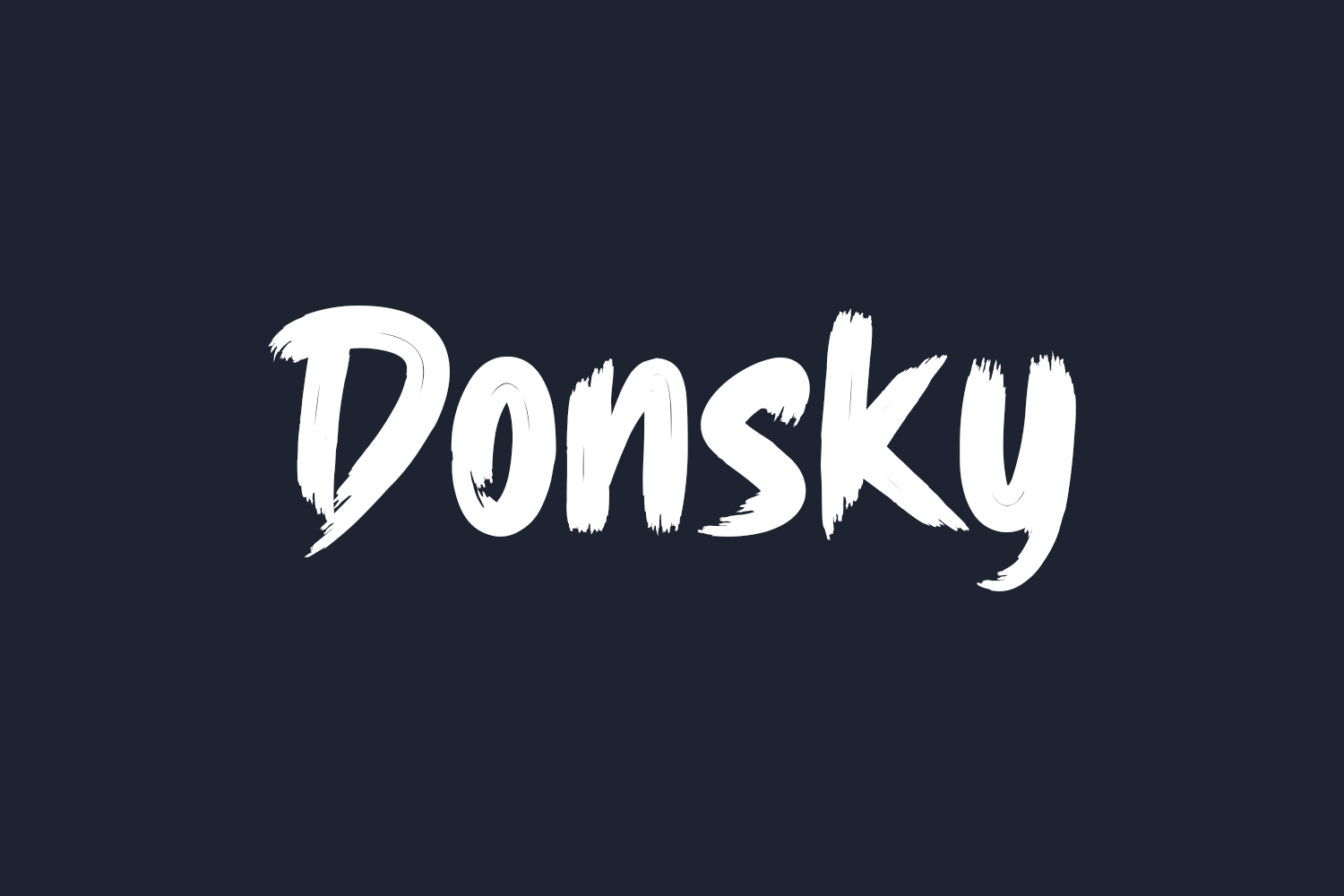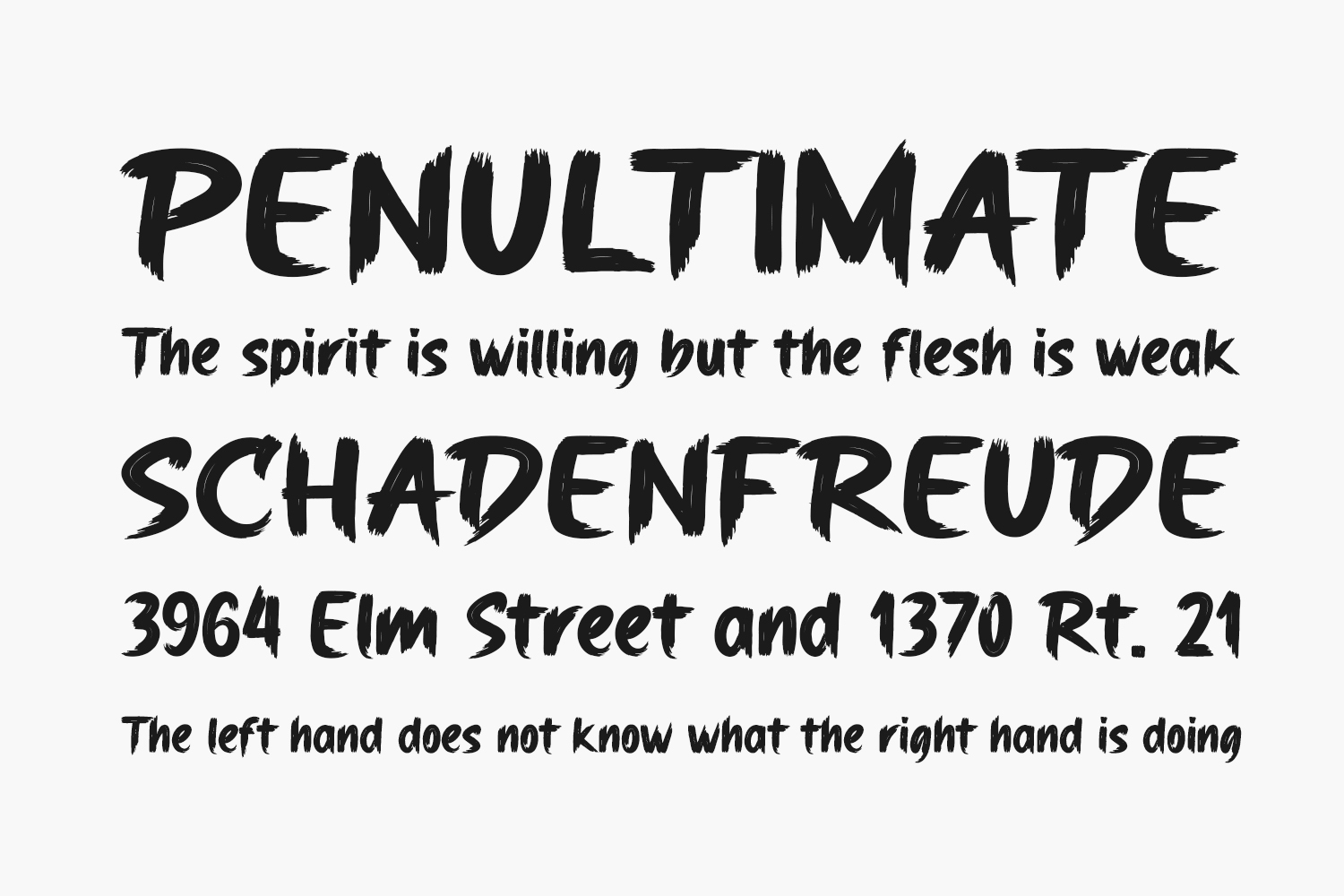
Introducing Donsky Free Font a captivating dry brush display font crafted to elevate your creative ventures. Perfect for a spectrum of projects including logos, branding, product packaging, mugs, quotes, posters, shopping bags, t-shirts, book covers, labels, photography, watermarks, and beyond. Unleash the charm of this exquisite font to infuse vitality into any DIY endeavor. Download the font for free if you need it for personal use or purchase the full version for commercial use.
Designed by Lemonthe